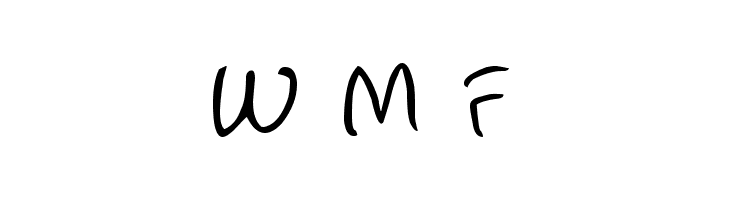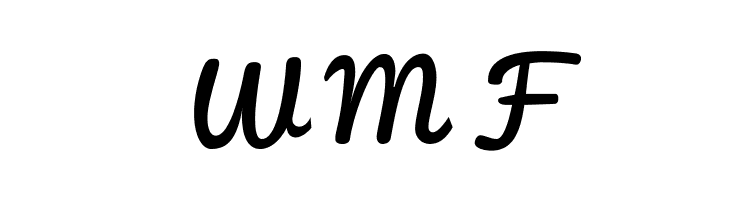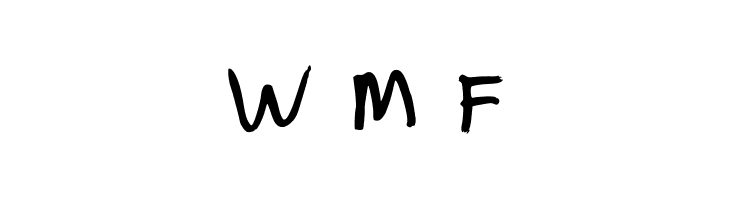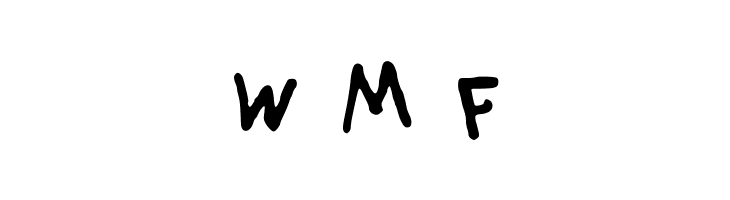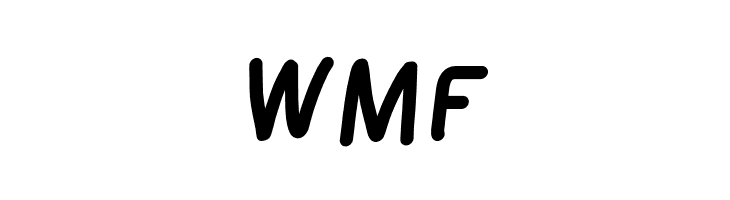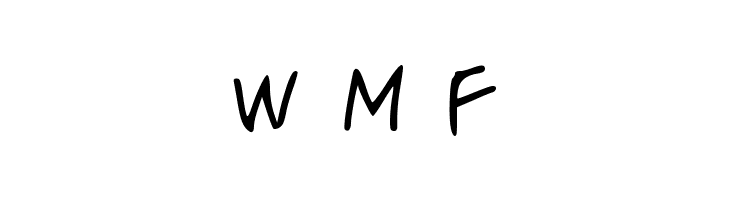
A playful, handwritten-style font with consistent strokes and a casual vibe.
A playful, handwritten font with irregular strokes and a casual style.
A playful, handwritten script font with smooth, interconnected characters.
A playful, casual handwritten font with smooth, rounded lines.
A casual, handwritten font with bold, rounded strokes and a playful style.